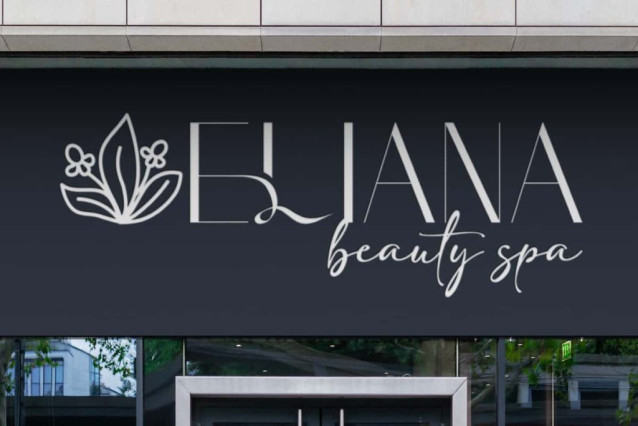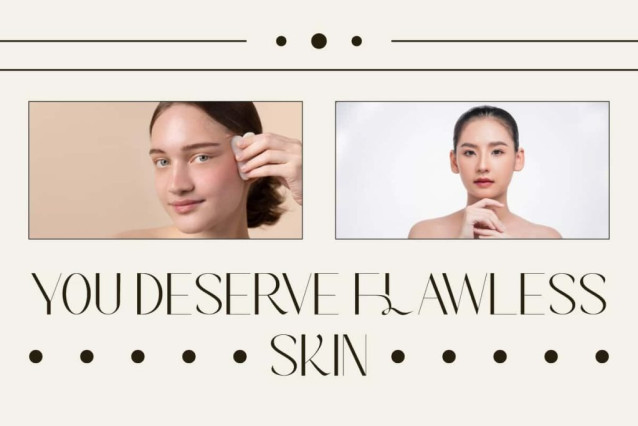
Raquele Alvana Font
Raquele Alvana Font is a sleek modern girly yet stunning sans-serif font with elegant details that make any design look polished. It can enhance your work through its clean and sophisticated visuals. Perfect for brochures, business cards, catalog magazine, flyers, greeting cards, headlines, invitations, labels, letterhead, quotes, signage, stationery, titles, and more.
Raquele Alvana Font includes full set of Uppercase and Lowercase Basic Characters, Numbers, Punctuation, Symbols and Ligature. Timeless and sleek, with subtle handcrafted details. Perfect for cafés, cosmetics, digital design, e-commerce, fashion, florists, graphic design, hair salons, interior design, skincare, spa salon, wedding organizer, etc.